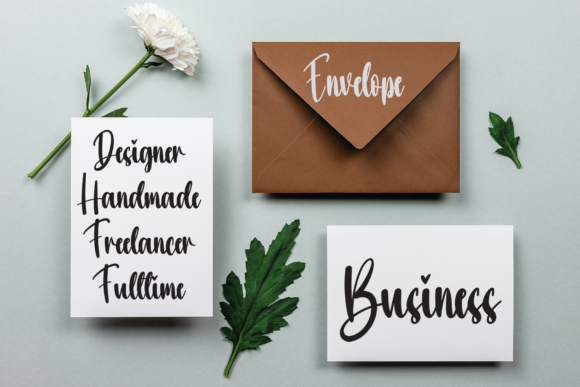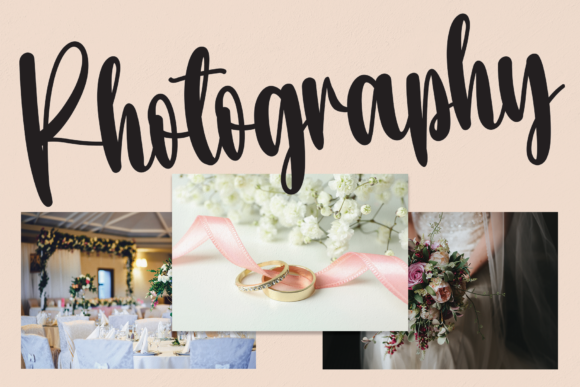
Unique Handmade Font
db-ku.com - Script & Handwritten -- advertisements, product packaging, product designs, labels, photography, watermarks, invitations, stationery, and any project that requires a handwritten taste.